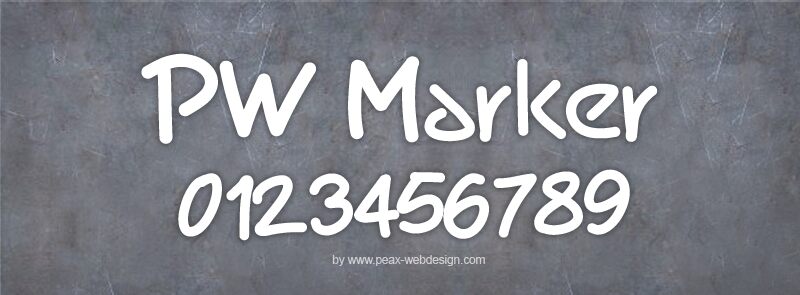
PW Marker by Peax Webdesign is a free handwritten marker font with broad, rounded strokes and a lively, uneven silhouette. Its changing stroke widths, close spacing, and softly blunt ends recall quick lettering made with a well-used felt-tip pen.
Children's posters are its strongest setting, especially beside bright, simple illustrations. Across snack packaging, school event graphics, and casual merchandise, the same broad strokes turn the wording into part of the playful artwork.